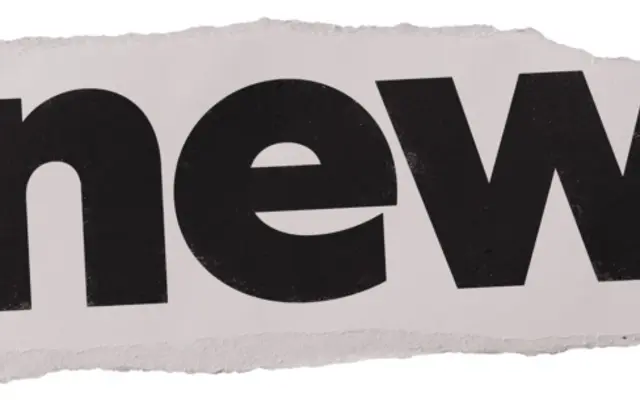
A geometric sans serif from Kurppa Hosk Type offered in three distinct subfamilies — Vert, Lut and Plan — each sharing seven weights and matching italics.
Three subfamilies built on a shared geometric sans construction give the family range across different tonal registers while maintaining structural consistency. Each of Vert, Lut and Plan runs from Light to Black with corresponding italics, covering 42 styles in total. Extended Latin coverage and a broad glyph set including arrows, fractions and currency symbols make it suited to both editorial and interface work.
Described explicitly as a geometric sans serif; the three subfamilies (Vert, Lut, Plan) share a geometric construction with consistent proportions across seven weights and italics.